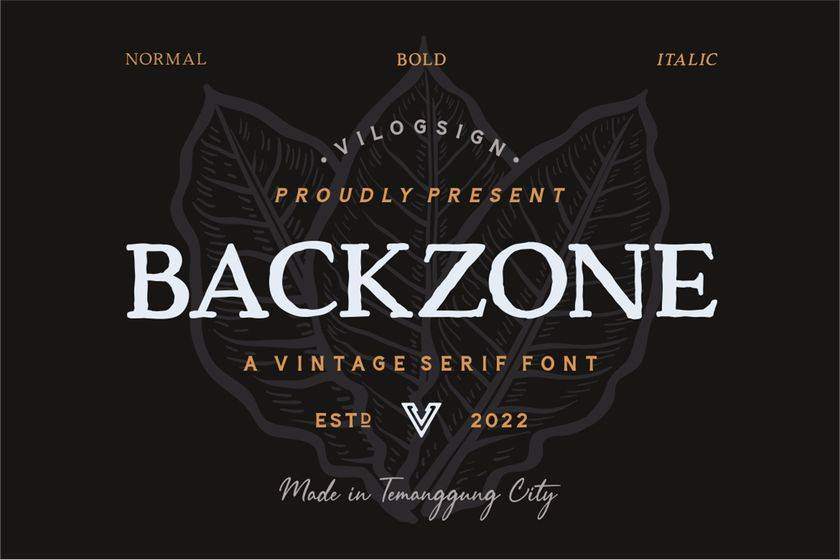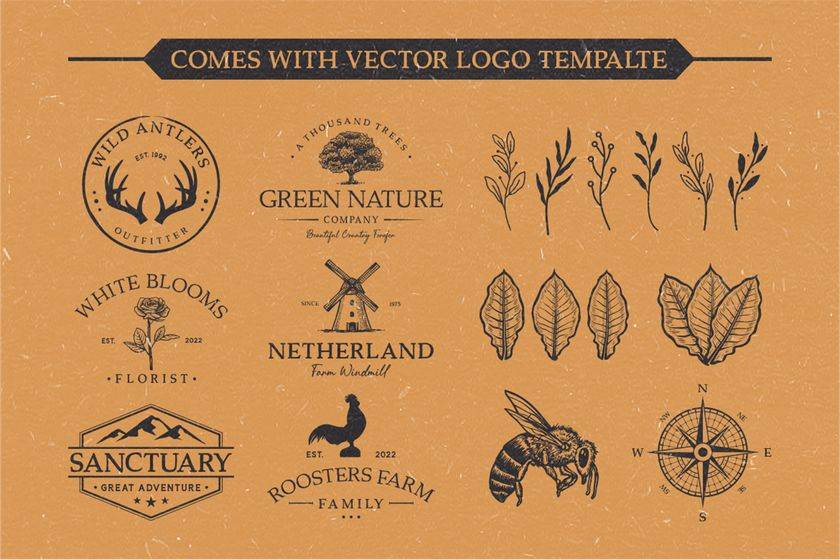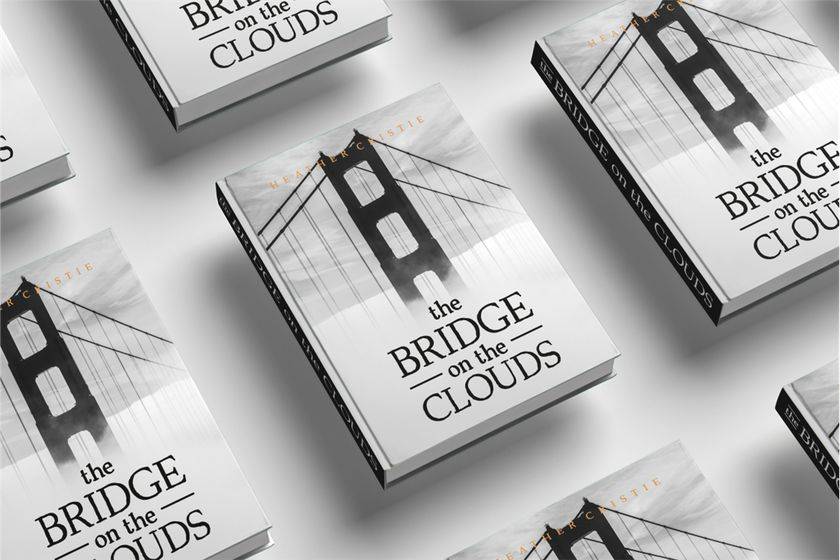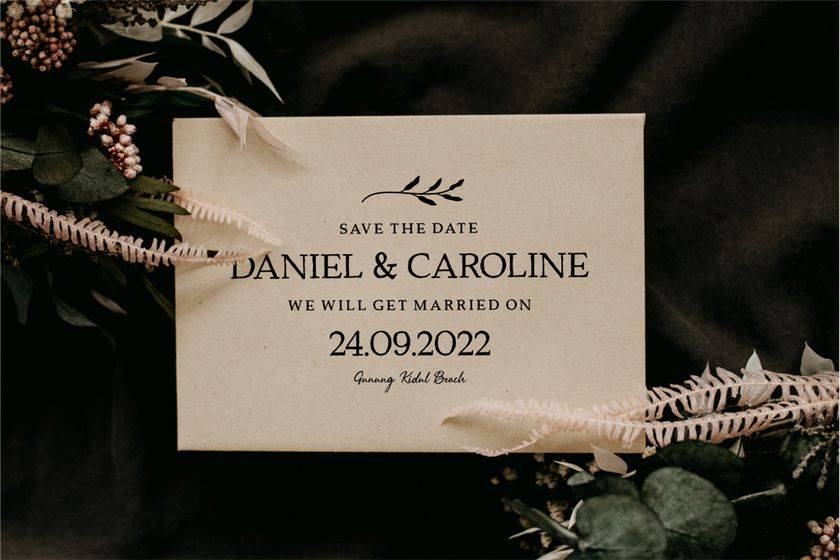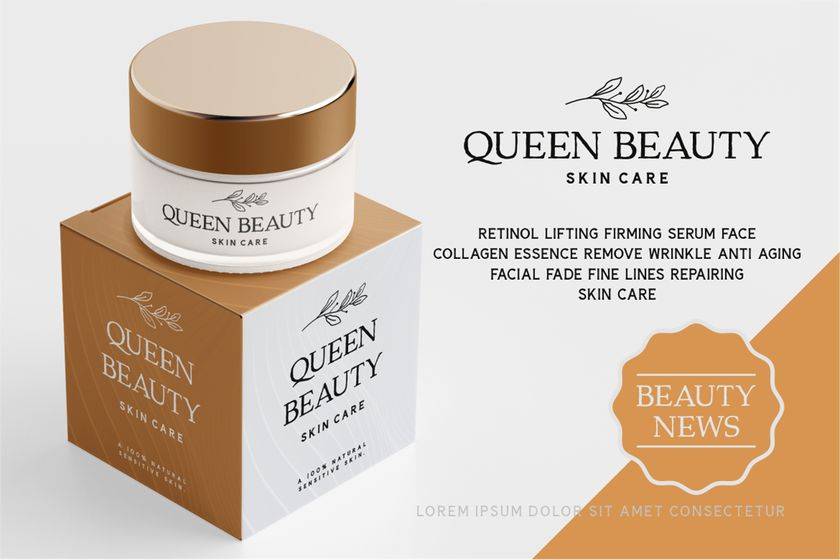
Backzone is a serif font with a hand-crafted, slightly irregular style that gives it a charming and organic feel. Its medium weight, moderate contrast, and distinctive letter shapes create a vintage yet approachable look, making it ideal for creative projects that require a touch of personality without sacrificing readability. This font works well for editorial design, logos, posters, and any context where a unique, artistic serif can add warmth and character.
Backzone Font
About Backzone Font
| Font family | Backzone Font |
| Release date | 2022-02-28 |
| Designer | Vilogsign |